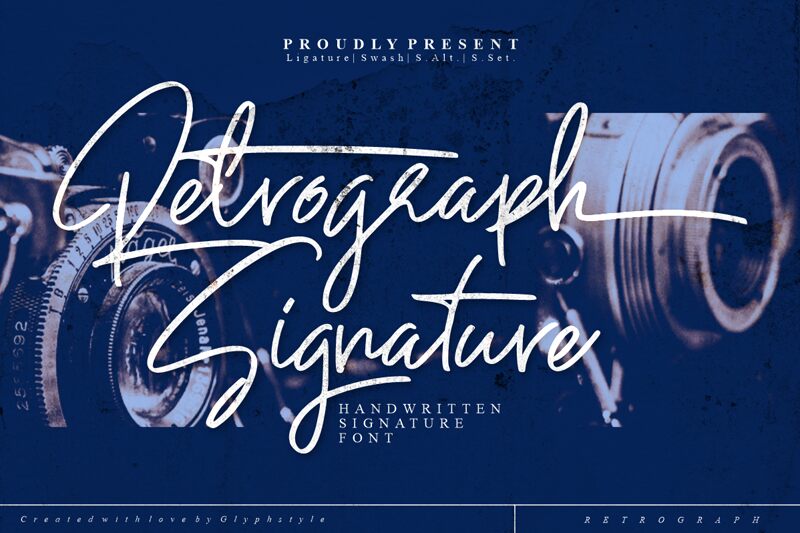
Retrograph, designed by Glyphstyle, is an extra-light handwritten signature font that exudes vintage charm. Its flowing curves and unique character will add a touch of nostalgia to any project, while also maintaining a modern edge. Perfect for branding materials, logos, invitations, and product packaging - Retrograph can help bring a sense of personality and authenticity to your designs. With its ethereal weight, Retrograph is ideal for elegant and delicate designs that require a touch of whimsy. Bring your projects to life with the timeless appeal of Retrograph!